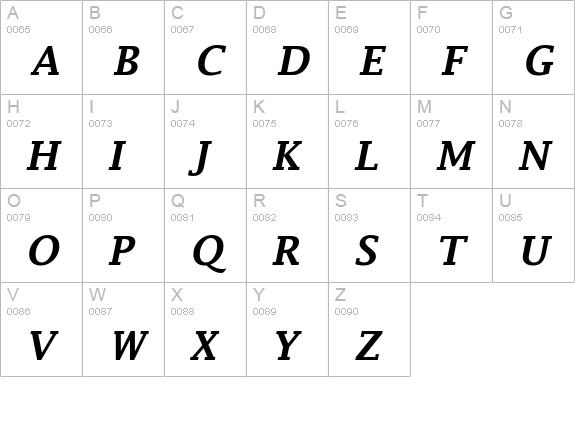
Lucida Fax Demibold Italic is a sub-bold, structured, italic variant in the Lucida typeface family \xE2\x80\x94 well suited to sub-headlines and emphasised passages.
Lucida Fax Demibold Italic font is a bold and stylish typeface that exudes sophistication and professionalism. Its sleek italic design adds a touch of elegance to any project, making it perfect for headings, titles, and other prominent text. The strong demibold weight ensures that your message will stand out with clarity and impact. What makes Lucida Fax Demibold Italic font even more appealing is that it is available for free download at FontsMarket.com. This means you can easily access this high-quality font without any cost, making it a valuable addition to your font collection. Whether you're working on a design project, creating a presentation, or crafting promotional materials, Lucida Fax Demibold Italic font will elevate your work with its modern and dynamic appearance. Download it today and enhance your projects with this versatile and eye-catching typeface.